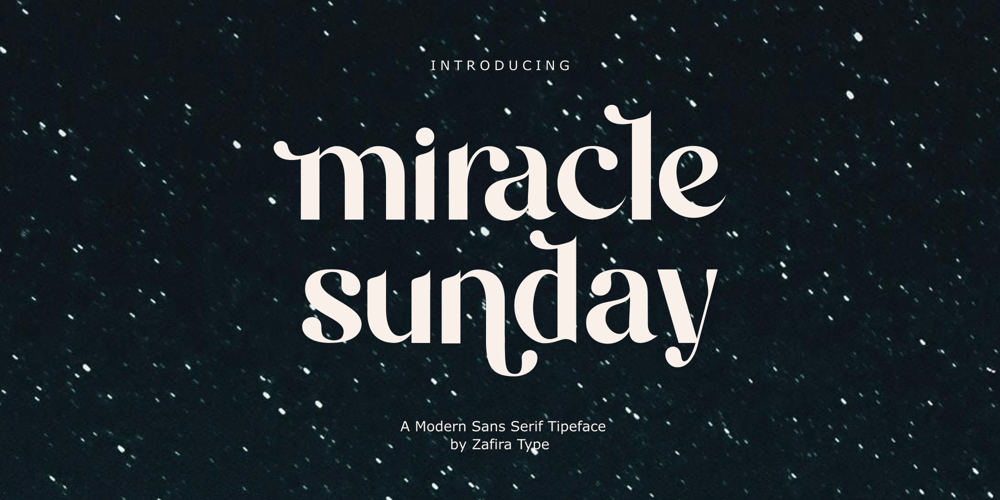
Miracle Sunday Font Family was designed by Su Hirno and published by Zafira Type. Miracle Sunday contains 1 styles and family package options. Miracle Sunday is a modern and elegant sans-serif font. Miracle Sunday is well-suited for advertising, branding, logotypes, packaging, titles, headlines, and editorial designs.This font is PUA encoded which means you can access all of the amazing glyphs and ligatures with ease!